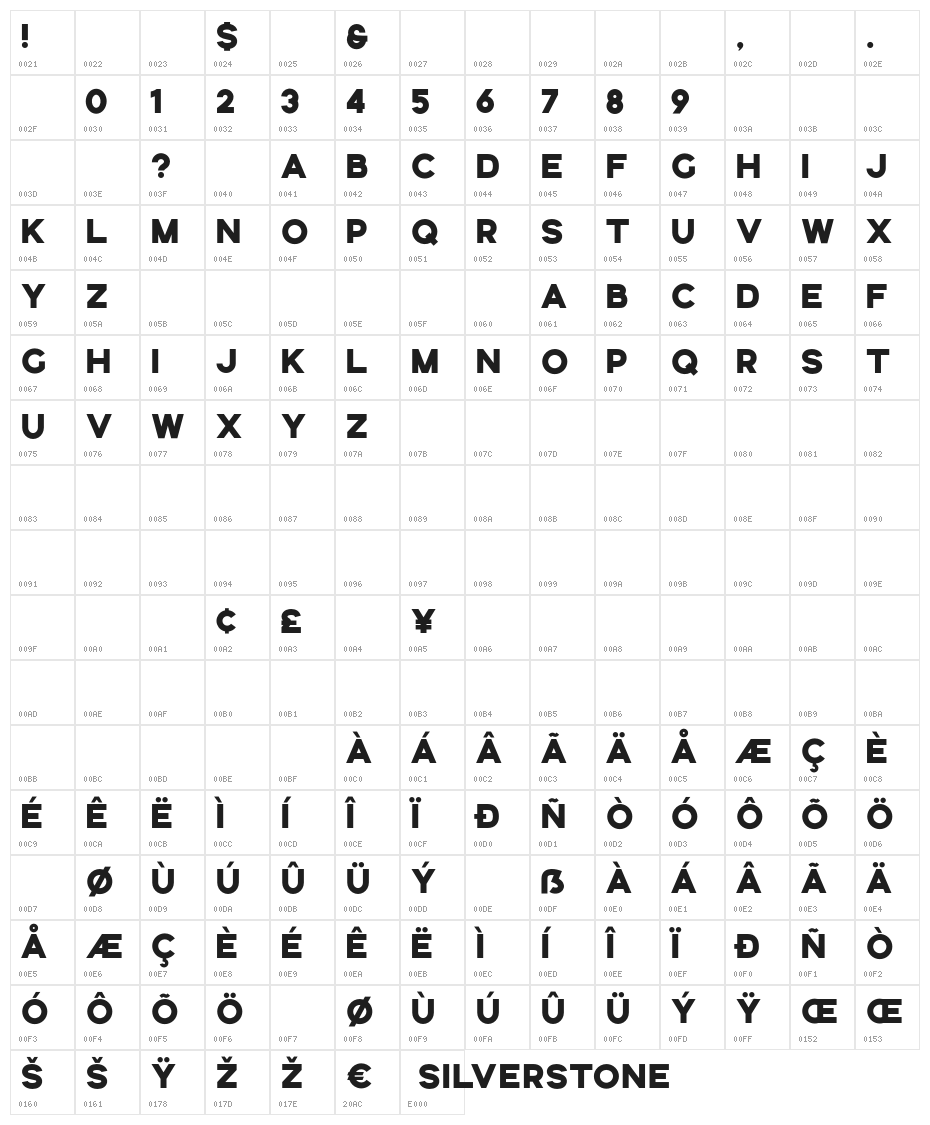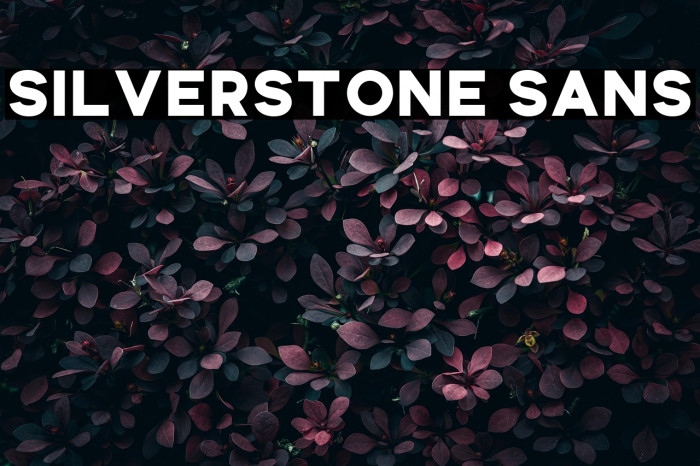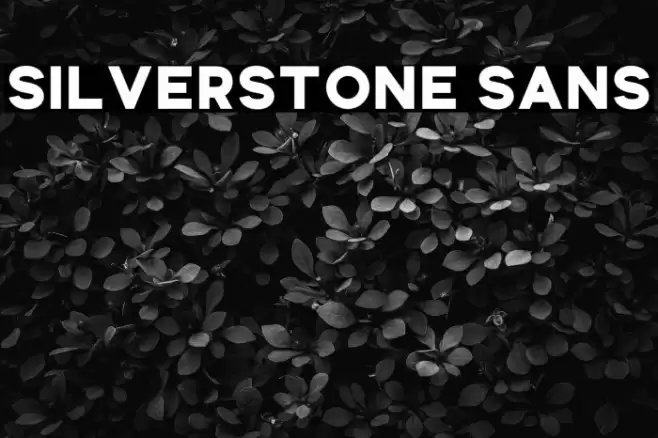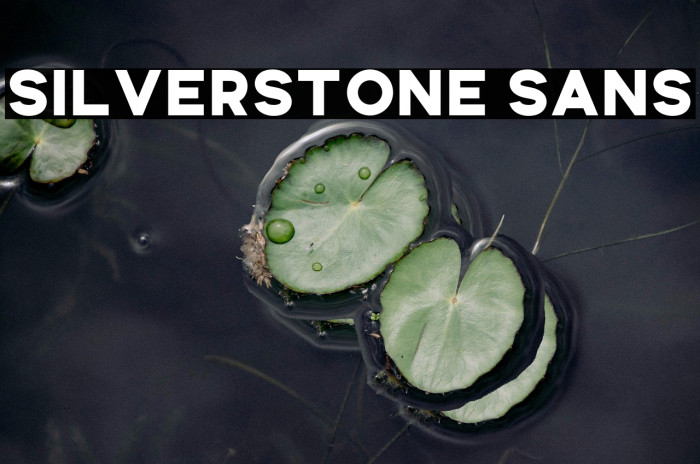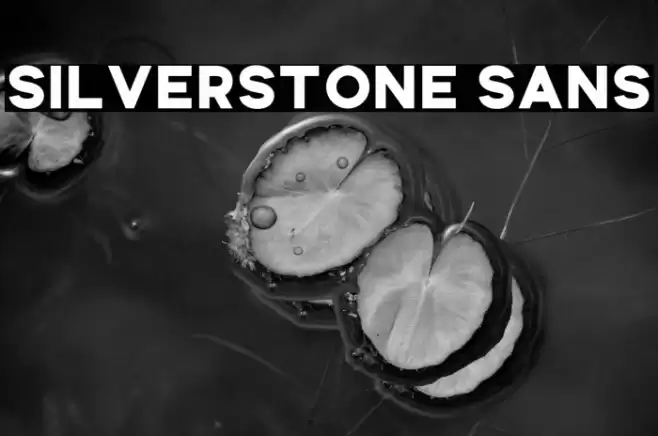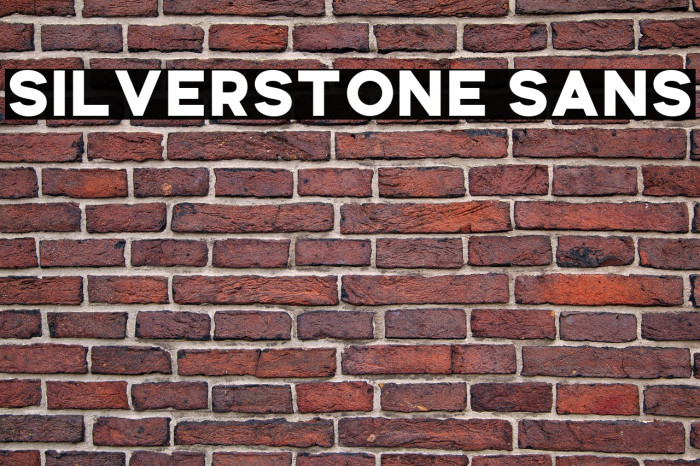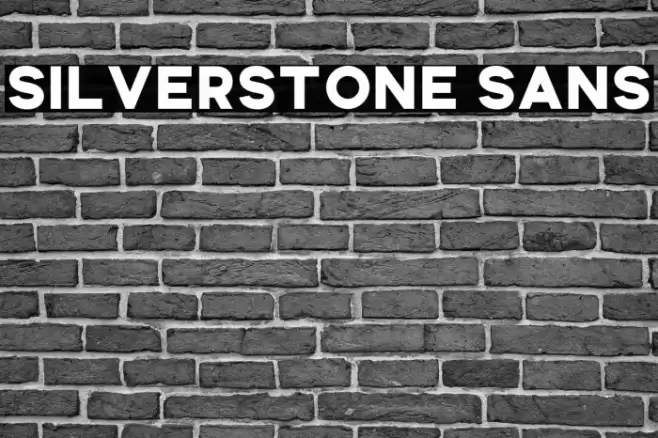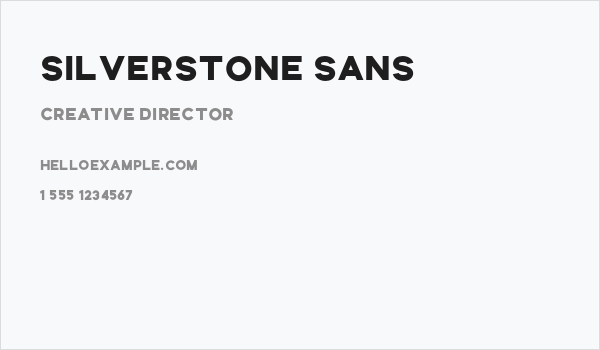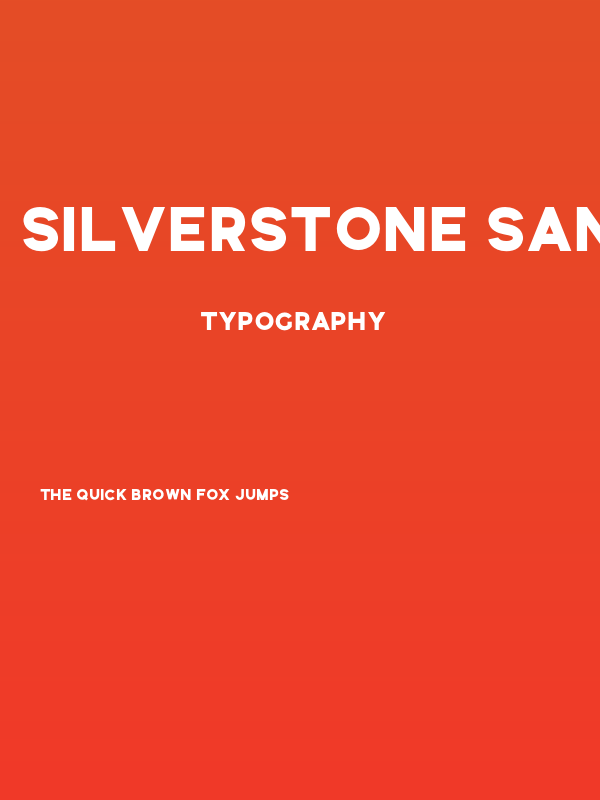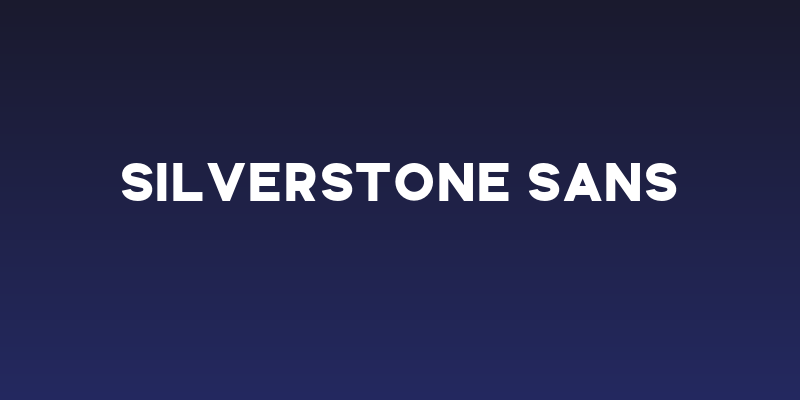
Silverstone Sans Font
Silverstone Sans Description
This font exhibits a bold, modern sans-serif style with clean lines and a strong presence. The characters are uniformly thick, contributing to a high contrast that makes the text stand out prominently. The uppercase and lowercase letters are well-proportioned, maintaining a consistent width that enhances readability. The numerals are equally bold, ensuring they are easily distinguishable. Special characters are designed with the same boldness, integrating seamlessly with the rest of the typeface. This font's simplicity and strength make it versatile for various design applications.